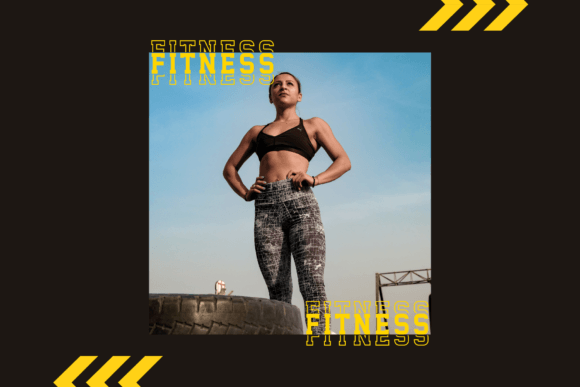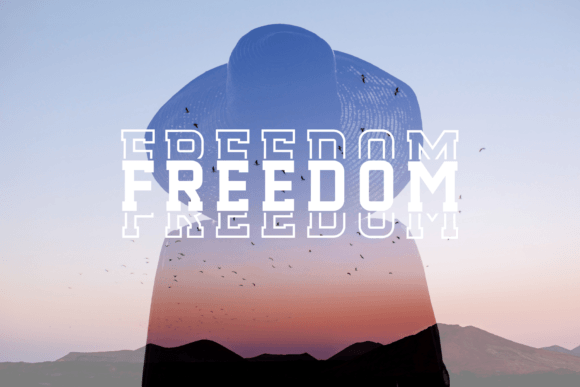
Metrics Font
Metrics is an attractive and exclusive font. Perfect for headings and titles, this font adds a touch of elegance to any design project. Its versatility makes it suitable for both digital and print media.